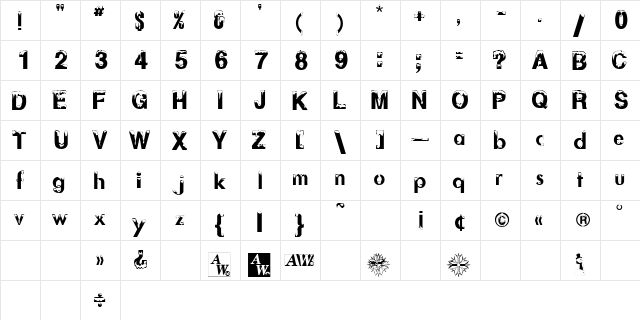
AlaskanNights Regular
Design Context for AlaskanNights Typeface
AlaskanNights is a composed and adaptable typeface that performs quietly and consistently across a wide range of design contexts.